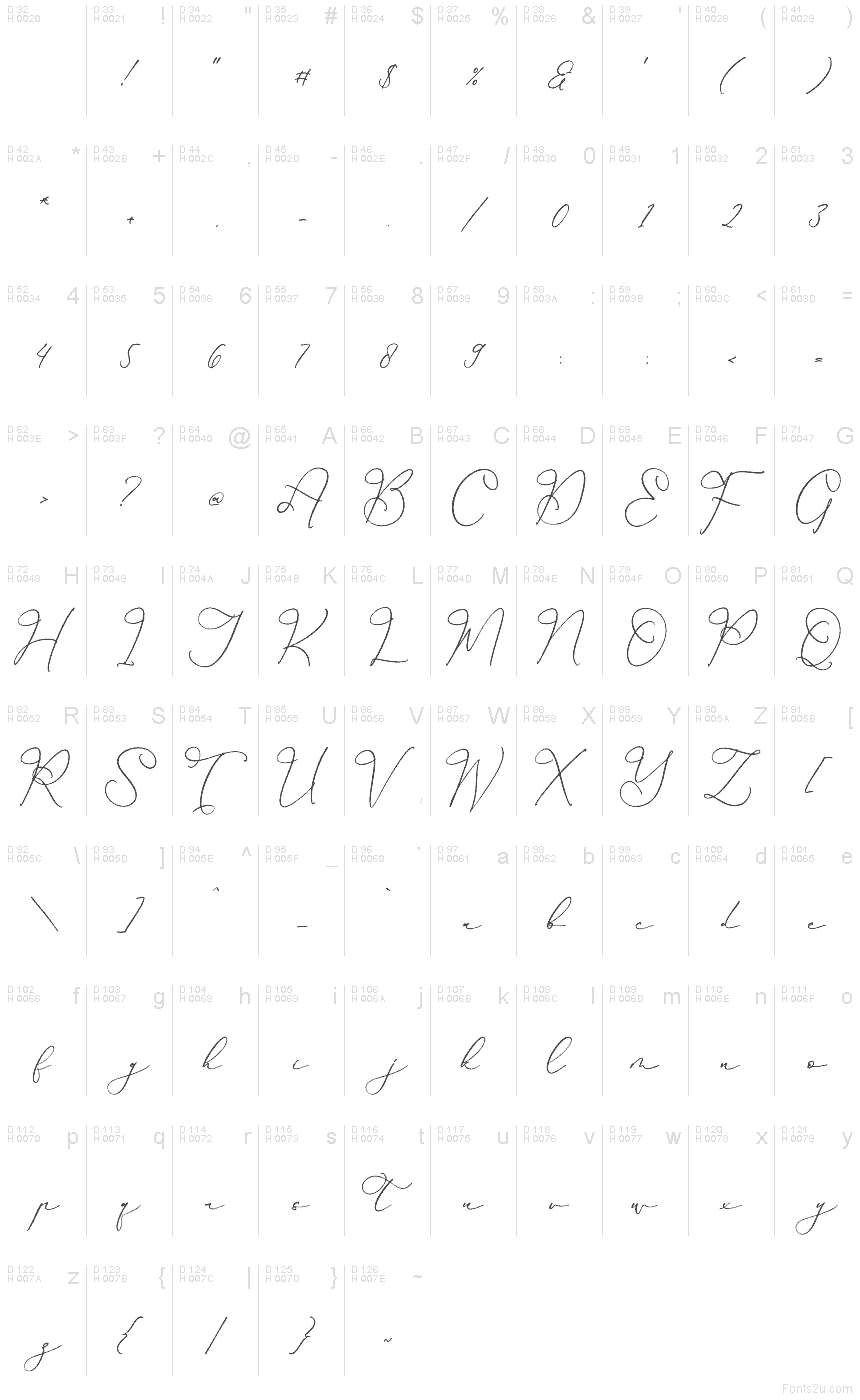
Hardyela Sandert
Hardyela Sandert font by Storytype Studio is a free light handwritten signature font. Its feather‑fine strokes, casual baseline sway, and long, breathy flourishes give names and short phrases an effortlessly luxe signature feel. The rhythm stays airy without looking flimsy, so it reads like fresh ink on smooth paper—sleek, soft, and intentional.
Using Hardyela Sandert, you’ll elevate wedding invitations, boutique logos, photography watermarks, product packaging, social posts, and event place cards. This free font shines on hero names and taglines where the delicate loops can breathe; set it larger with generous letter‑spacing for the most polished look. Simple pairing tip: match it with a clean, understated sans in small caps to anchor the elegance.